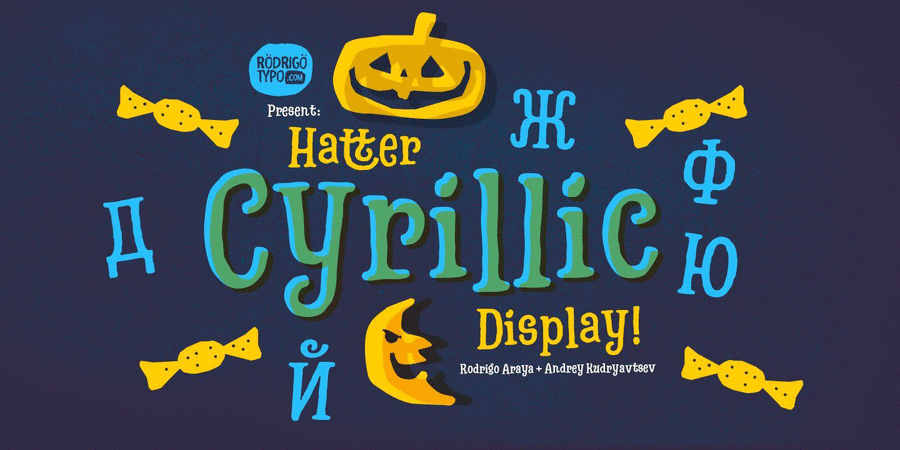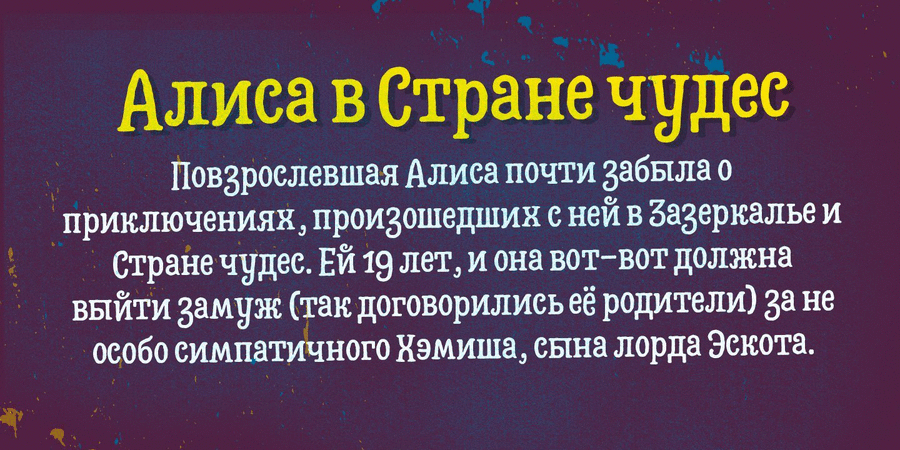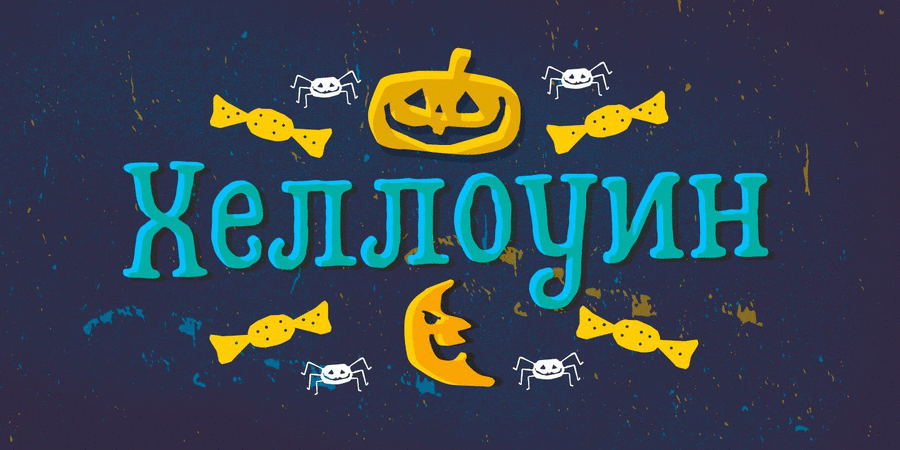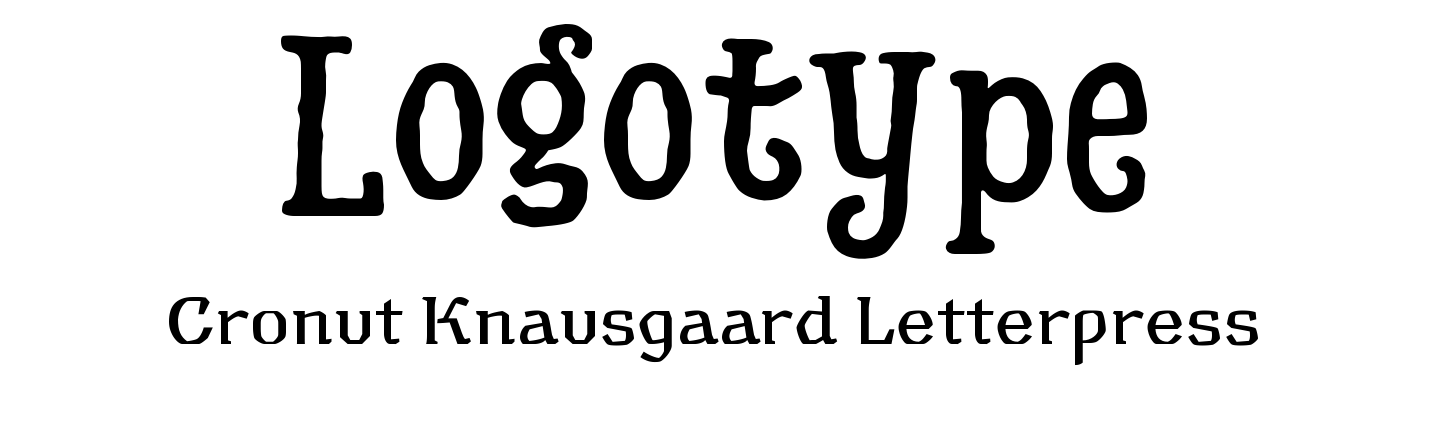
Logo font pair with Florentin Gravure (1 of 4)About Hatter CyrillicTypeface of the Mad Hatter is the most Halloween font ever! It is a mixture of nineteenth-century slab serifs and the Tim Burton-style lettering like in: Alice in Wonderland, The Corpse Bride, The Nightmare Before Christmas etc. The font looks like a terrible Frankenstein, but at the same time like a young witch.
Hatter contains Latin and Cyrillic, so you can scare people almost all over the world! =)
Font was called to life by Rodrigo Araya Salas and Andrei Kudryavtsev on the full Moon of Friday the thirteenth in 2017.